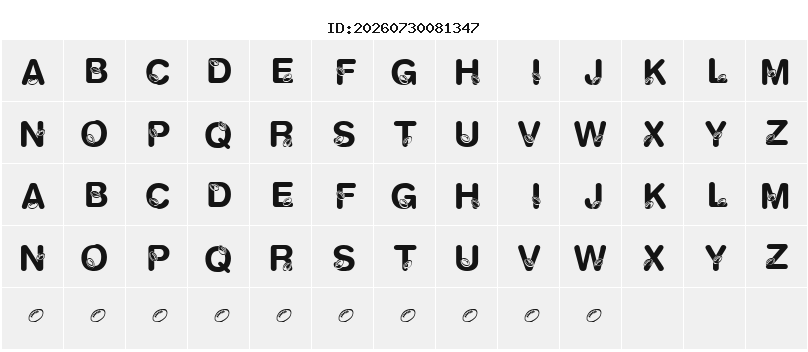
KR Football Fun Preview
• Font Name: KR Football Fun
• Full Font Name: KR Football Fun
About KR Football Fun.ttf
KR Football Fun.ttf is a modern, elegant sans-serif font designed for ultimate readability and visual harmony. Perfect for branding, headlines, web design, and print materials.